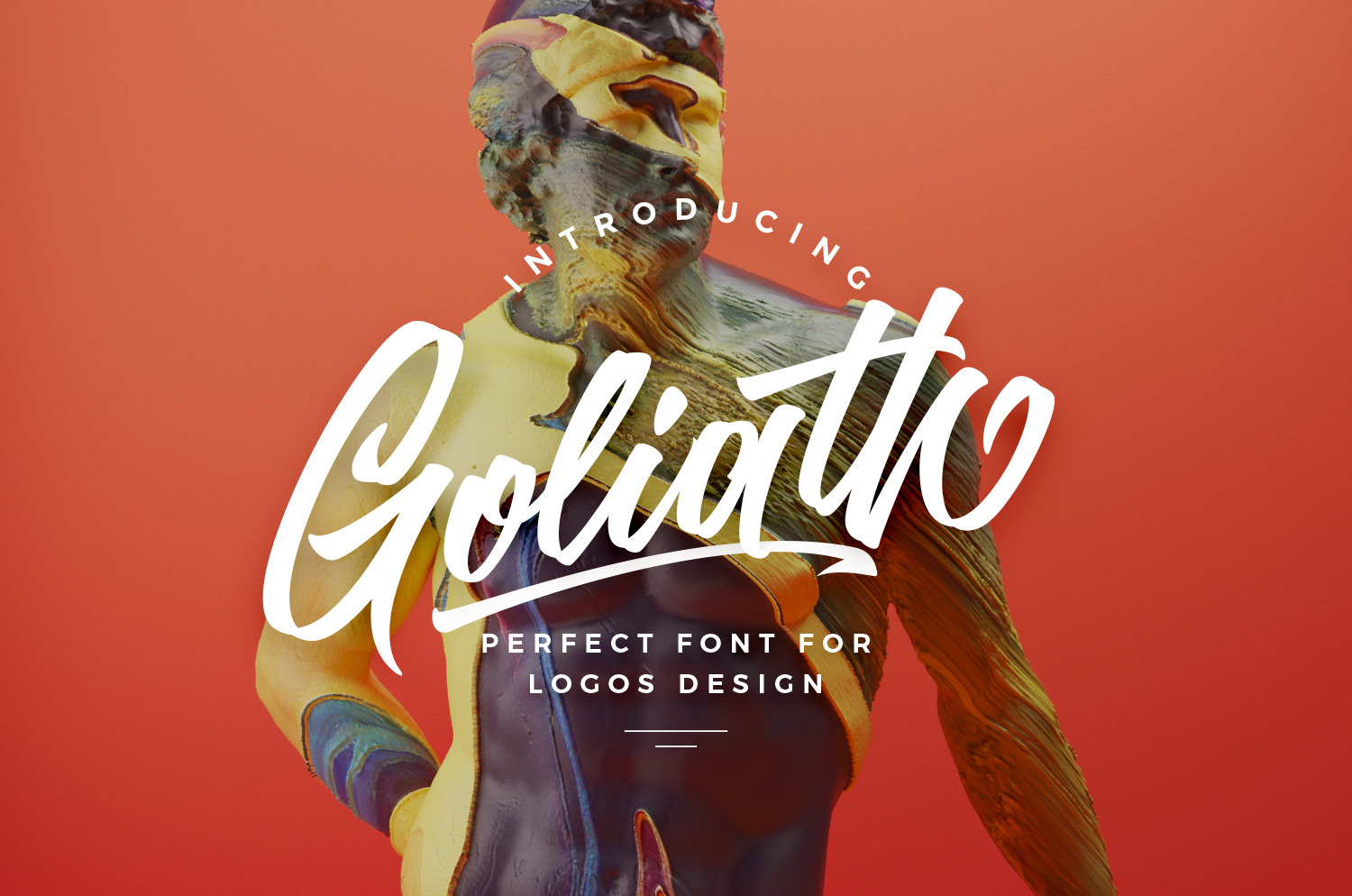
Goliath script font
Goliath is a brush typeface with personality. You can use it as a logo, badge, insignia, packaging, headline, poster, t-shirt/apparel, greeting card, and wedding invitation. The flowing characters are ideal to make an attractive messages, mix and match Goliath with a bunch of alternative characters to fit your project.